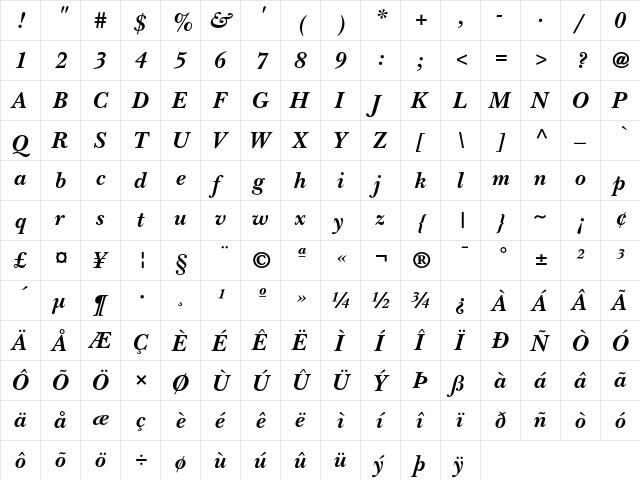
ITC New Baskerville Bold Italic Font Preview
ITC New Baskerville Bold Italic
Design Context for ITC New Baskerville Typeface
ITC New Baskerville offers clean, dependable letterforms without strong stylistic allegiance, making it a practical choice for designers who need flexibility. The slanted form adds forward momentum and visual energy. The heavy weight commands attention and anchors typographic hierarchies.
Pro Tip: Use ITC New Baskerville for emphasis, pull quotes, and subheadings where its slanted energy can add rhythm to the layout.